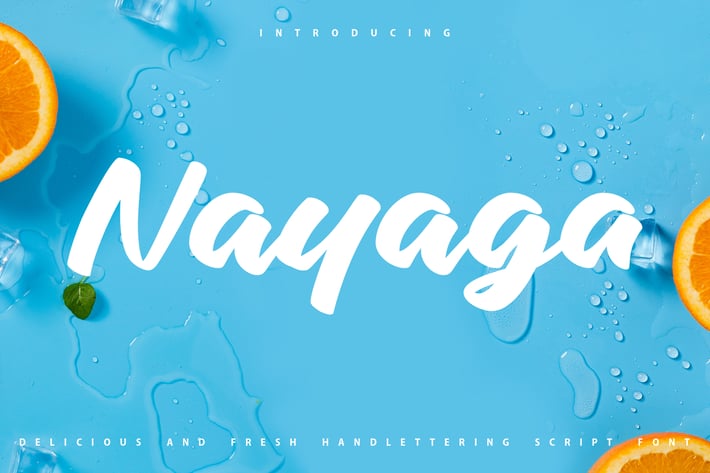
Nayaga | Handlettering Script Font
Nayaga | Handlettering Script Font with a calligraphy style, So beautiful on invitation like greeting cards, branding materials, business cards, quotes, posters, and more!